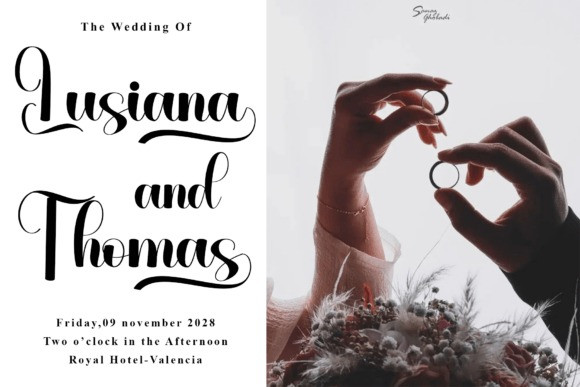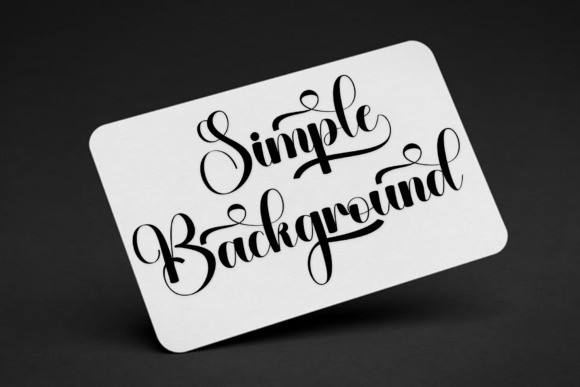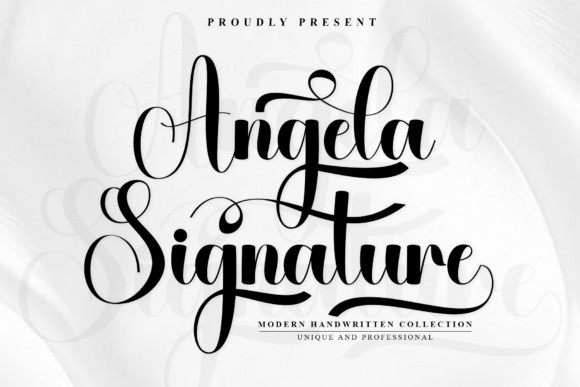
Angela Signature Font
Angela Signature Font is a modern script typeface that exudes charm and sophistication. Its graceful curves and refined letterforms are defined by tall, expressive ascenders, generous loops, and fluid connections, perfectly capturing the spirit of celebratory handwriting with a contemporary twist. The striking contrast between bold downstrokes and delicate upstrokes creates a captivating rhythm, ensuring the font is both decorative and highly legible.